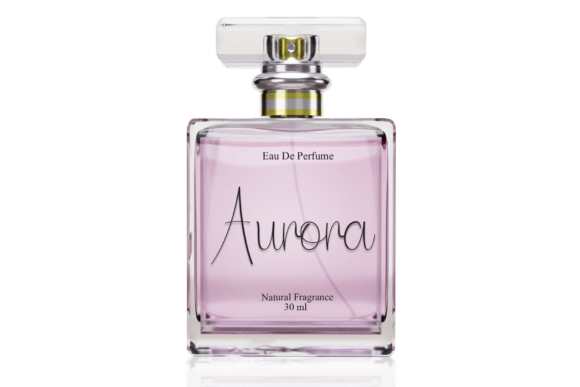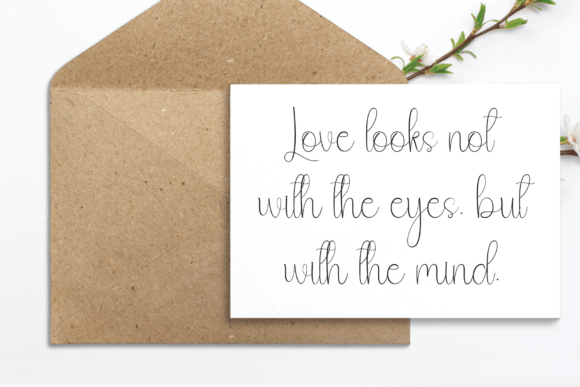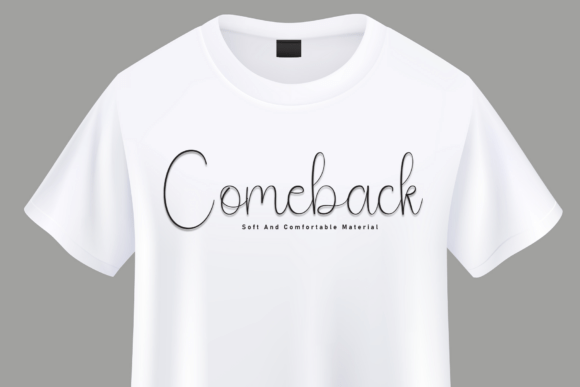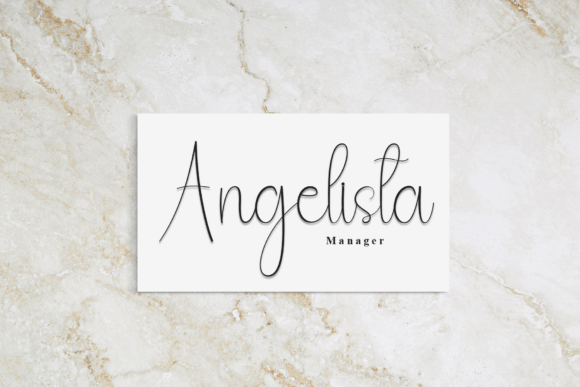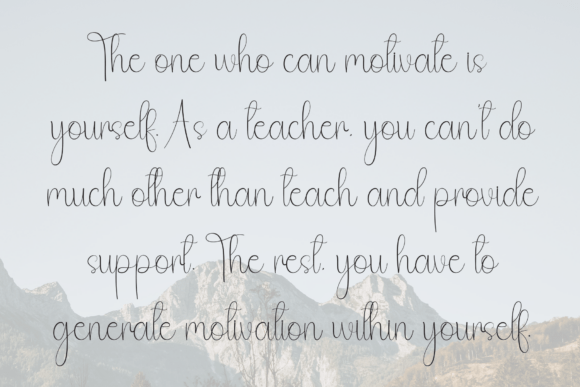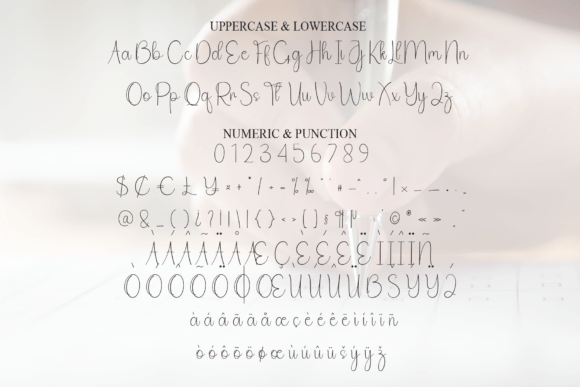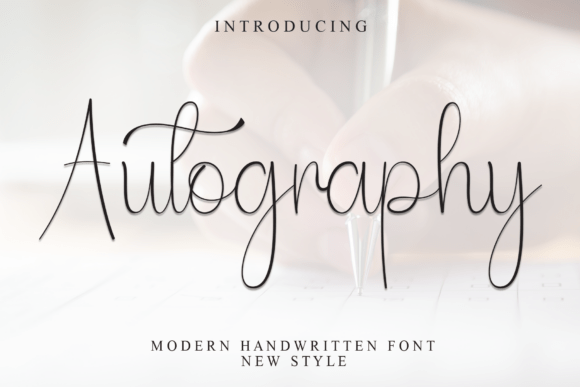
The Autography Font: Elevating Designs with Elegance and Fluidity
I’ll never forget the moment I stumbled upon the Autography font. I was working on a branding project for a luxury wedding planner, and I was struggling to find the perfect font that exuded elegance and sophistication. The client wanted something that would make their invitations and marketing materials feel high-end, but not too formal. That’s when I discovered Autography, and it instantly became the perfect fit.
As a designer, I’m always on the lookout for fonts that can elevate my projects. Here’s what I love about Autography:
- ✨ Smooth, flowing strokes that create a natural and sophisticated feel
- ✅ Elegant and fluid writing style that’s perfect for branding, invitations, and creative projects
- 💫 A beautiful balance of charm and modernity that adds a personal, artistic touch to any design
While Autography is an amazing font, it’s not without its quirks. Here are a few things to keep in mind:
- 🤔 Some of the letters can be a bit tricky to read at smaller sizes, so it’s best to use it at larger sizes (18pt or bigger)
- ⚠️ The font doesn’t have a huge range of weights, so it may not be the best choice for designs that require a lot of variation in font weight
The Story Behind Autography
Autography was designed by a team of typographers who wanted to create a font that would capture the essence of handwritten script. The designers drew inspiration from classic calligraphy and modern digital fonts to create a unique and elegant typeface. The result is a font that’s both sophisticated and artistic, perfect for adding a personal touch to any design.
| Font Name | Autography Font |
| What is Autography font? | Autography is a stylish handwritten script font that radiates elegance and fluidity. |
| What can I use Autography for? | Autography is perfect for branding, invitations, creative projects, and any design that requires a personal, artistic touch. |
| Is Autography easy to read? | Autography is generally easy to read, but some of the letters can be a bit tricky to read at smaller sizes. It’s best to use it at larger sizes (18pt or bigger). |